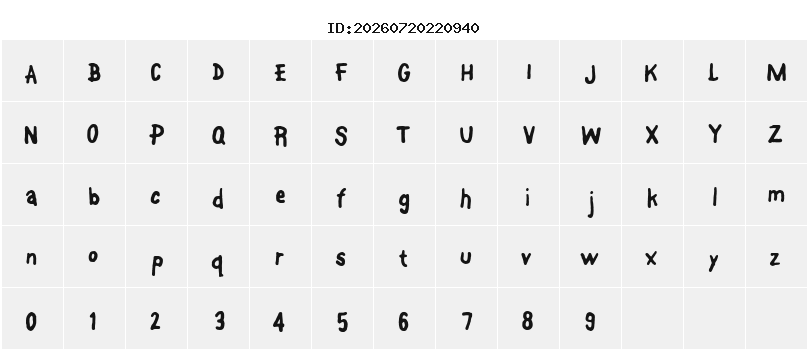
FontOnAStick Preview
• Font Name: FontOnAStick
• Full Font Name: FontOnAStick
• PostScript Name: FontOnAStick
About FontOnAStick.ttf
FontOnAStick.ttf is a modern, elegant sans-serif font designed for ultimate readability and visual harmony. Perfect for branding, headlines, web design, and print materials.